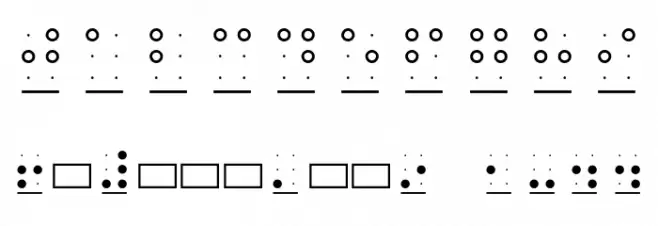
braille grid hc Font
braille grid hc Description
A highly stylized font based on the Braille grid system, using dot patterns and geometric arrangements to represent alphanumeric characters and symbols. The design is minimalistic, with clear separation between each character, and includes both filled and outlined dots, as well as rectangular elements for certain symbols.
A Braille-inspired geometric dot grid font from Decorative fonts.
- Proposed Projects: Accessible design projects, educational materials about Braille, tactile signage, experimental graphic design, inclusive branding.
- Character Spacing: Wide
- Overall Style: Modern, Minimalist, Experimental
- Use Case: Display, Educational, Accessibility, Posters